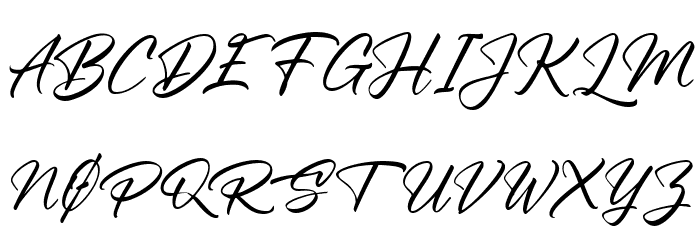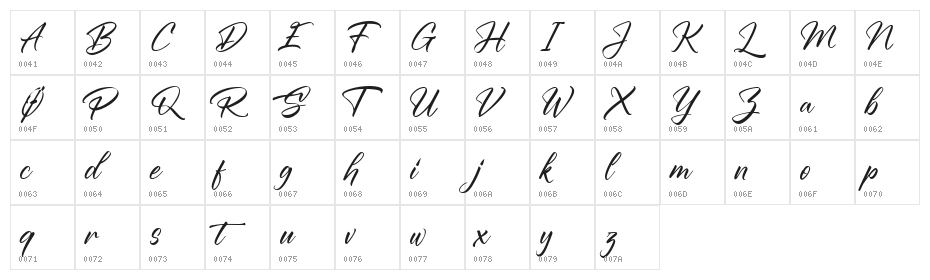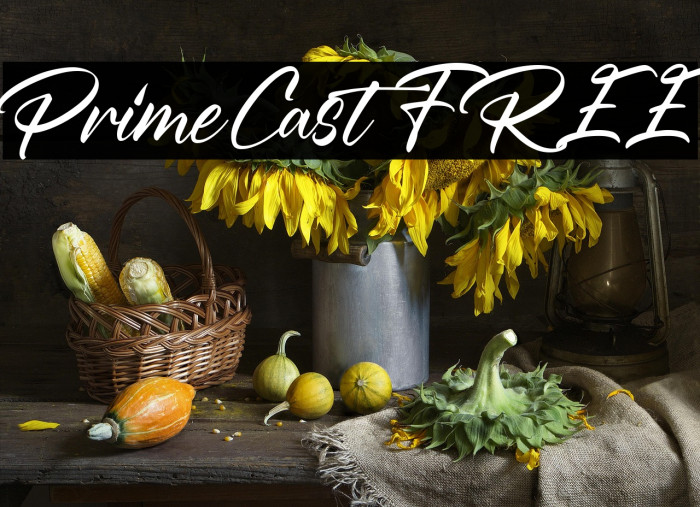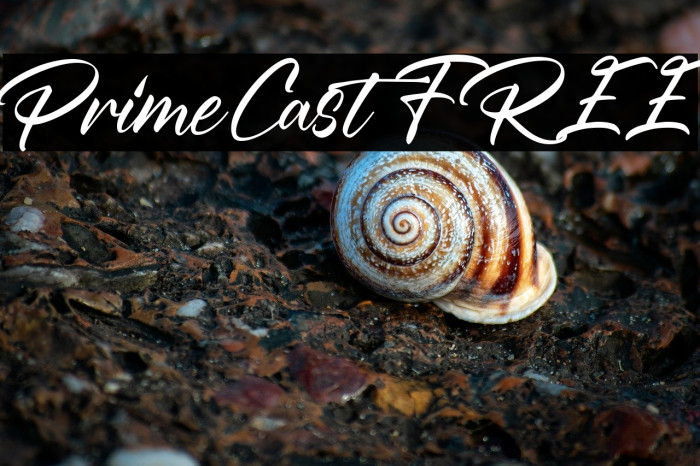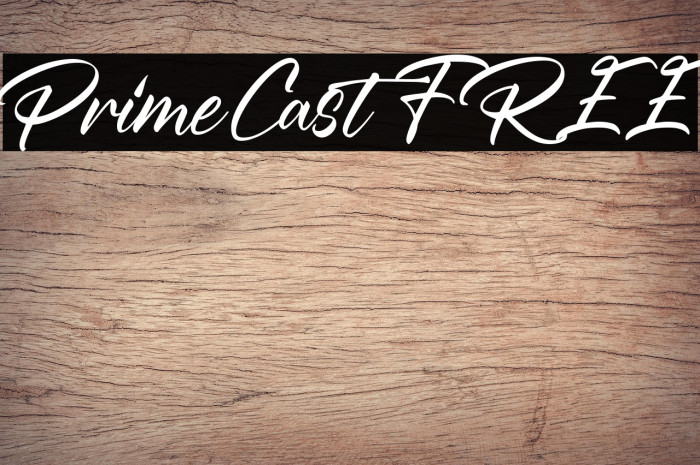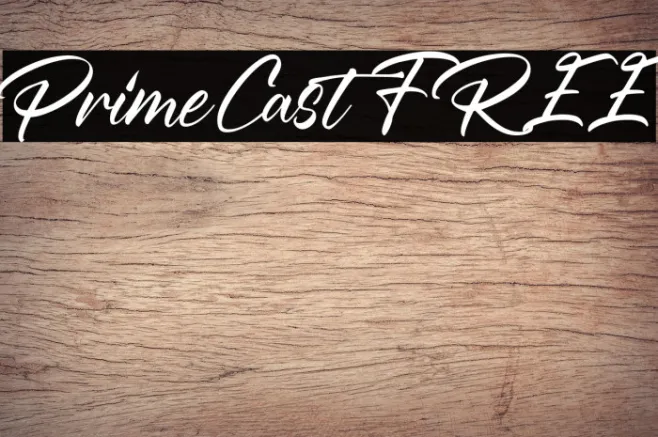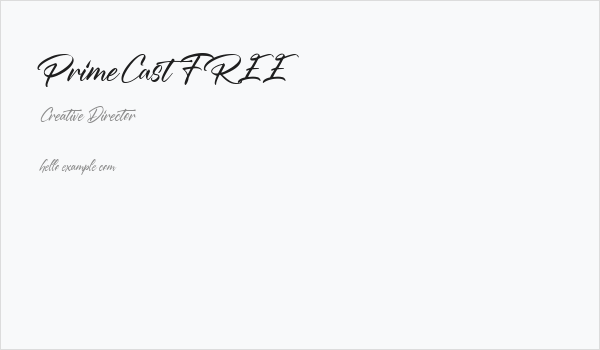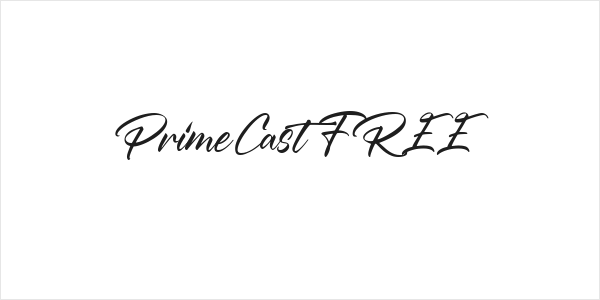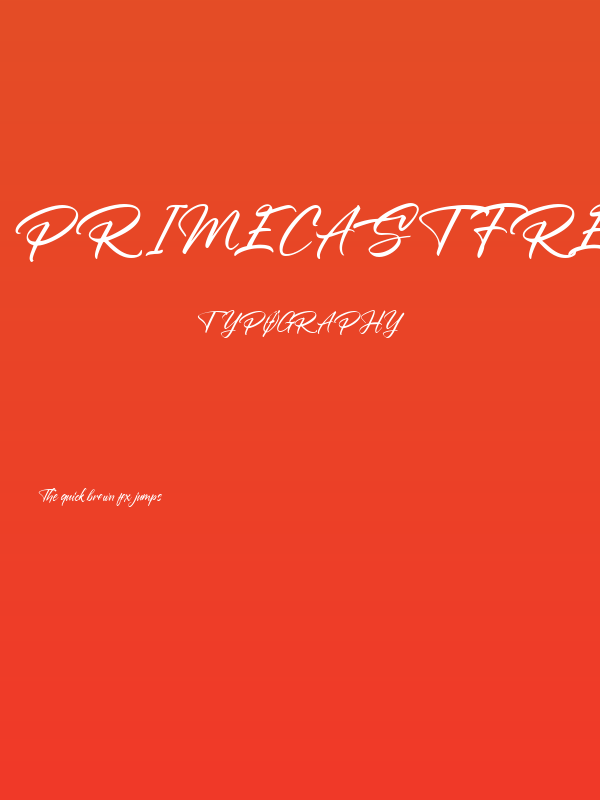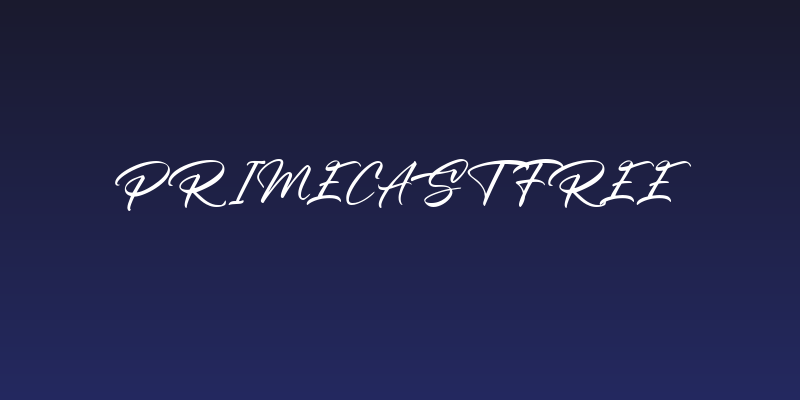
PrimeCast FREE Font
PrimeCast FREE Description
This font features a flowing, cursive style that exudes elegance and sophistication. The characters are connected in a smooth, continuous manner, giving it a handwritten appearance. The uppercase letters are slightly more ornate, with flourishes that add a touch of flair. The lowercase letters maintain a consistent flow, enhancing readability while preserving the script's artistic quality. This font is ideal for projects that require a personal, yet polished touch, such as invitations, branding, or decorative headings. The overall design balances between classic calligraphy and modern aesthetics, making it versatile for various applications.
| Overall Style | Elegant, Modern |
| Proposed Projects | Ideal for wedding invitations, branding, greeting cards, and decorative headings. |